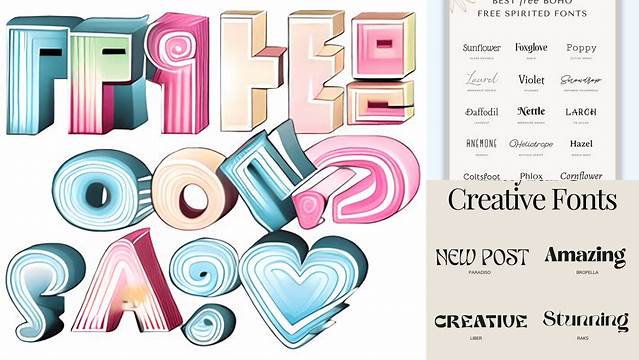
Custom Fonts: Enhance Your Designs
Welcome, design enthusiasts! Let's dive into the exciting world of custom fonts, where you can elevate your projects and make your brand stand out. In this comprehensive guide, we'll explore the power of custom fonts, how they can transform your designs, and why they are a worthwhile investment.
The Magic of Custom Fonts
Custom fonts are more than just letters; they are the visual voice of your brand. They convey personality, tone, and style, making your message memorable and impactful. Whether you're a seasoned designer or a creative beginner, understanding and utilizing custom fonts can significantly enhance your projects.
What are custom fonts? Simply put, they are unique typefaces created or selected specifically for your brand or project. Unlike standard fonts that are widely available, custom fonts offer exclusivity and originality. This means your design won't look like everyone else's. Think of it like this: you wouldn't wear the same outfit as everyone else, so why should your brand use the same fonts? Custom fonts allow you to differentiate yourself from the competition and leave a lasting impression on your audience.
Why are custom fonts important? The right font can capture the essence of your brand. A sleek, modern font might be perfect for a tech company, while a playful, handwritten font could be ideal for a children's brand. Custom fonts help you establish a strong brand identity, communicate your values, and attract your target audience. They also ensure consistency across all your marketing materials, from your website to your social media posts and print materials. This consistency builds trust and recognition, making your brand more memorable. Beyond aesthetics, custom fonts also improve readability, which is crucial for conveying your message effectively. A well-chosen font ensures that your audience can easily consume your content, enhancing their overall experience. By investing in custom fonts, you're investing in your brand's success. The visual impact is crucial, it can influence how customers perceive your brand and products. Make sure you have the best choice.
Choosing the Right Custom Fonts
Selecting the perfect custom fonts is a crucial step in your design journey. It's not just about finding a font that looks nice; it's about finding a font that aligns with your brand's personality, target audience, and overall message. With so many options available, here's a step-by-step guide to help you make the right choices.
Understand your brand: Before even looking at fonts, define your brand's core values, personality, and target audience. Is your brand modern and minimalist, or classic and elegant? Are you targeting a young, tech-savvy audience or a more mature demographic? Understanding these aspects of your brand will guide your font selection process.
Consider the purpose of the font: What will the font be used for? Headings, body text, or both? Headings often call for bolder, more attention-grabbing fonts, while body text needs to be highly readable. Knowing the primary purpose of the font will help you narrow down your choices. Look for fonts that are legible at various sizes and on different devices. Test the font: Before making any final decisions, test your font in various scenarios. Place it in your logo, website headers, and body text. Does it look good on both screens and print? Does it work well with your other design elements?
Think about the weight and style of the font: Fonts come in different weights (light, regular, bold, etc.) and styles (italic, condensed, etc.). Consider how these variations will be used. A bold font might be perfect for headlines, while a lighter weight could work better for body text. Consider how different styles will impact the overall look and feel of your design. Mix and match: It's okay to use multiple fonts in a single design, but don't overdo it. Choose a heading font and a body font that complement each other and create visual interest without being distracting. A general rule is to stick to two or three fonts max. Choose a typeface that has a wide range of styles and weights.
Creating Custom Fonts: Tools and Techniques
Creating your own custom fonts can be a rewarding but complex process. It demands a blend of creativity and technical expertise. The tools and techniques, the process can be broken down into manageable steps. Whether you're a seasoned designer or a creative beginner, here's how to get started.
Software for font design: Several software programs are specifically designed for font creation. Some popular options include: FontLab, Glyphs, and Adobe Font Folio. These tools offer a wide range of features, from simple letterform design to advanced kerning and hinting. The first step is to understand the basics of each program, and choose the one that best fits your needs and skill level.
Sketches and planning: Start by sketching your font on paper. This allows you to experiment with different letterforms, styles, and weights. Consider the overall personality and purpose of your font during this phase. Create a detailed set of sketches for each letter, number, and special character.
Digitization: Once you're happy with your sketches, it's time to digitize them. Import your sketches into your font design software and trace the letterforms, using vector tools. This is where your initial ideas take shape, so get the letters aligned correctly. Ensure that each letter is smooth and consistent, so it will be easy to read.
Considering licensing: When choosing a font, always review the licensing terms. Make sure the font's license allows you to use it for your intended purpose, whether it's for personal or commercial use, and understand the restrictions. Make sure to choose fonts that match the tone and brand identity. Remember to be patient and persistent. The right font can make all the difference in a design. By exploring these resources, you'll be well on your way to finding the perfect custom fonts for your projects.